What really separates a wordmark logo from a font? Sometimes, not very much at all. A good starting place is understanding what is a logo. The next is learning about famous wordmark logos!
You might think that über-rich companies like Facebook and Google, or high-end brands like Giorgio Armani, would invest in completely custom-made lettering for their logos. In fact, this is not always the case.
Basing a wordmark on an existing font is a common practice no matter how high-profile your client is. As you’ll see below, it’s the little differences that matter. Lengthened ascenders, adjusted kerning and other such seemingly minor modifications can transform a commonplace font into the backbone of a recognizable brand mark. Check it out.
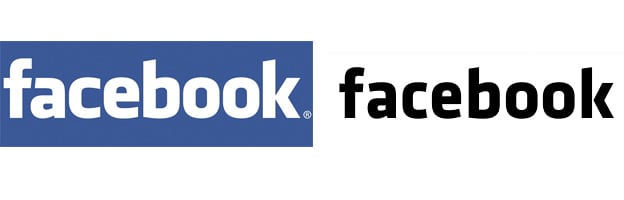
Facebook’s logo is based on the font Klavika. Can you spot the differences? The two parts of the “k” are merged, the cross bars of the “f” and “a” meet at a parallel slant, and the “c” has been widened slightly. (We wrote about this at greater length here).
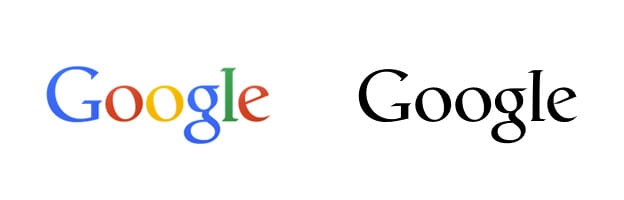
Google’s logo is based on the calligraphy-inspired font, Catull BQ. The differences are quite tiny: the cross bar on the “e” no longer tapers at the end. It is mostly the use of color that sets Google’s logo apart.
Vimeo
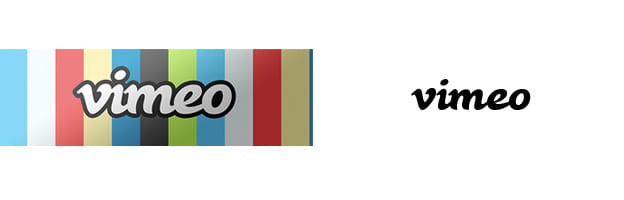
Vimeo’s logo is closely based on a font called Black Rose. Basically, the letters have just been squished a little closer together, merging the “v” and “i” and leaving less space between the “m,” “e” and “o.”
PayPal
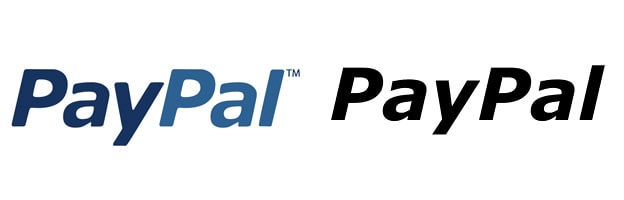
No doubt you have heard of Verdana, that font that PayPal’s logo is based on. PayPal rounded the edges of the letters to attain a less severe appearance, and altered the bellies of the “a”s to make them a bit squarer and longer. The result looks kind of retro to us.
TMZ
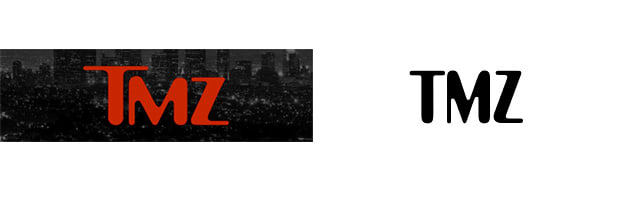
TMZ’s logo uses the font Amelia. The “T” has been enlarged so it extends over the “M.” The letters may also have been widened somewhat.
Flickr
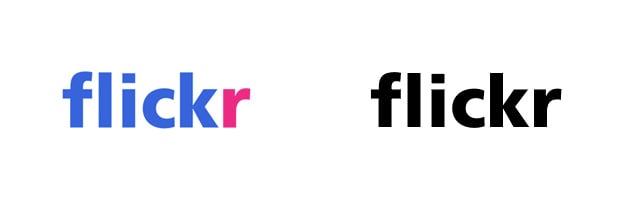
Unless there is a minuscule difference we aren’t noticing, Flickr’s logo does not modify its base font, Frutiger, at all. It relies entirely on color for its recognizability. (This would not be allowed in a 99designs contest, since a license for Frutiger bold could be purchased for far less than the prize amount).
Absolut
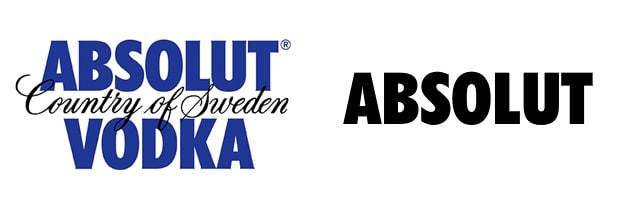
Absolut Vodka’s logo is based very closely on one of the most famous fonts of all time: Futura. If you look carefully, however, you’ll see that the Absolut logo adds tiny serifs to its letters, making them a bit more dynamic.
YouTube
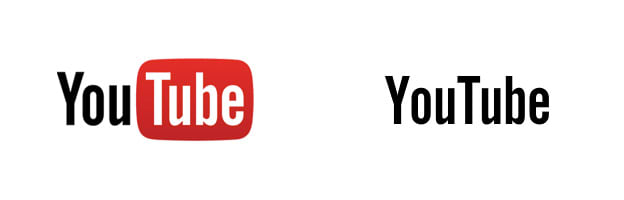
Not much change to YouTube’s base font, Alternate Gothic No. 2. The words are separated by a greater length and, of course, there is a box enclosing “Tube” (making this not technically a wordmark … but pretty close).
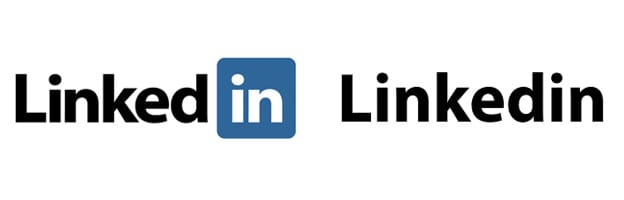
Linkedin uses a bolded version of Myriad Pro, with tightened kerning. Can you think of any other awesome companies that use Myriad?
Giorgio Armani
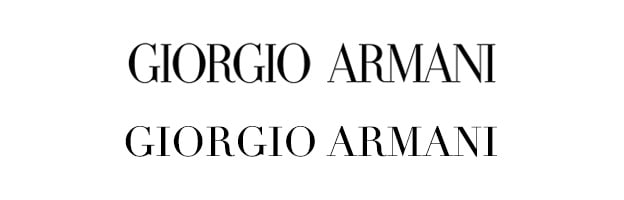
So-called modern serifs, which are characterized by the conjunction of thick and thin lines, have long been a hallmark of luxury branding. Giorgio Armani uses one of the most famous modern serifs, Didot LT. The kerning is tighter and the letters in “Armani” have all been connected.
Skype
Skype gets away with using a rounded variation of Helvetica, perhaps the most ubiquitous font of all time, for its logo. It tightens the kerning so the letters touch, and encloses them in a bubble outline.